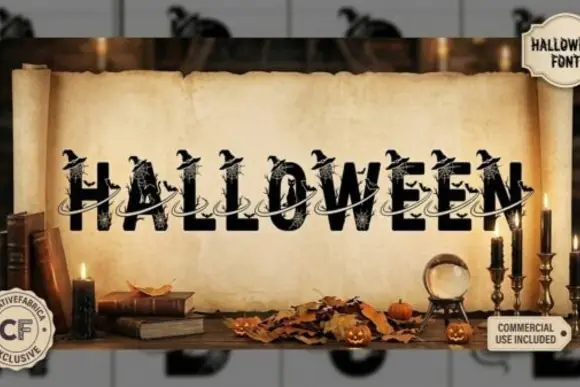
Midnight Spellbook Halloween Font | Highly Detailed Illustrated Display Font with Cats, Moons, Vines, Cobwebs & Witch Hats for Spooky Designs
Create magical, spooky, and highly eye-catching Halloween designs with Midnight Spellbook Halloween Font, a bewitching illustrated display font made for bold seasonal artwork. This premium decorative font goes beyond ordinary typography because every uppercase letter is designed like a unique hand-drawn art piece.
Each letter includes a magical Halloween world filled with black cat silhouettes, starry night skies, glowing moons, twisting vines, cobwebs, and classic witch hats. With its vintage engraved-style appearance, this font is perfect for creating statement designs that instantly feel spooky, mysterious, artistic, and festive.
Midnight Spellbook Halloween Font works best at larger sizes where its beautiful details can stand out. It is ideal for Halloween posters, t-shirt designs, mugs, stickers, party invitations, wall art, quote boards, sublimation projects, packaging, social media graphics, printable signs, book covers, and seasonal branding.
• Highly detailed illustrated display font
• Each uppercase letter works like hand-drawn artwork
• Includes cats, moons, vines, cobwebs, and witch hats
• Vintage engraved Halloween aesthetic
• Perfect for large display text and focal-point designs
• Great for spooky, magical, and witchy projects
• Adds premium seasonal character to creative products
Midnight Spellbook Halloween Font is a powerful choice for designers, crafters, small business owners, and digital product sellers who want to create unforgettable Halloween designs with rich detail, magical atmosphere, and vintage spooky charm.